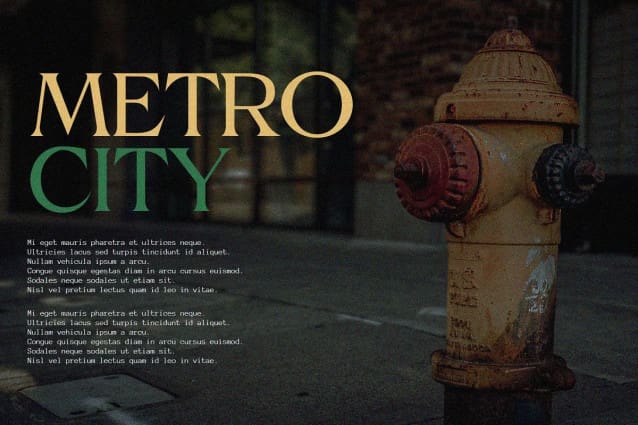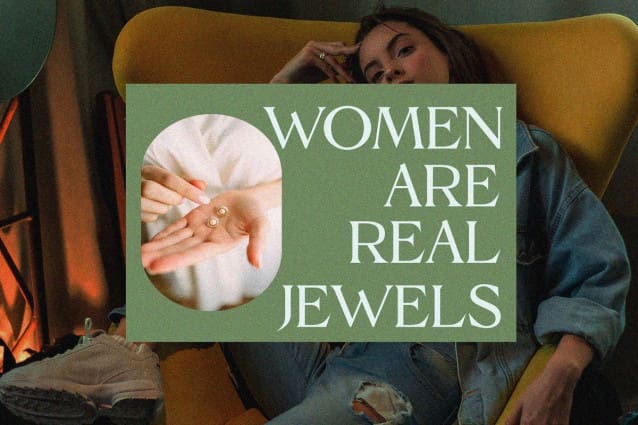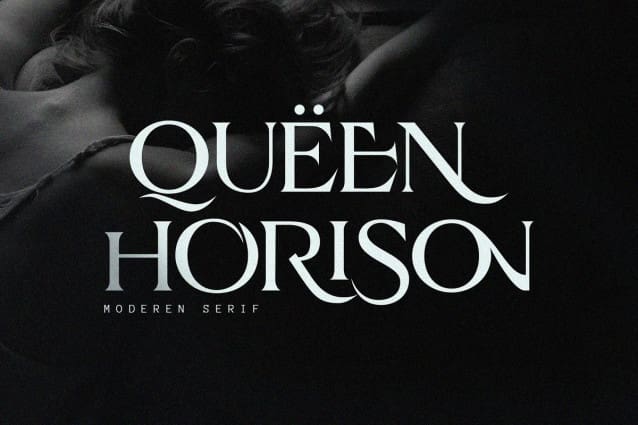
Horison Font
Horison Font, looks amazing and is easy to read. With Modern Serif Typeface style, which can be used to write the appearance of titles and subtitles as well as text descriptions. So by writing using this Horison Serif Typeface, you can feel a new sensation in being creative in designing writing. Surely this Horizon is very suitable for advertising, social media, branding, logotypes, packaging, titles, editorial and modern design.